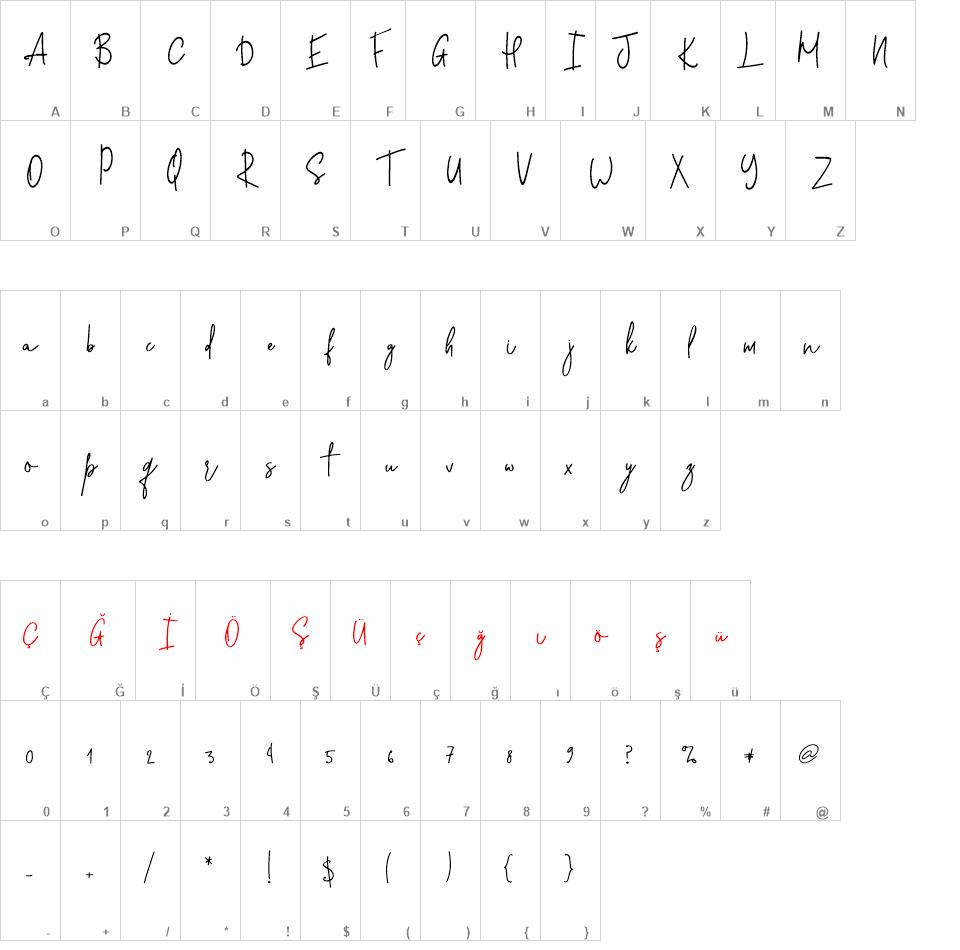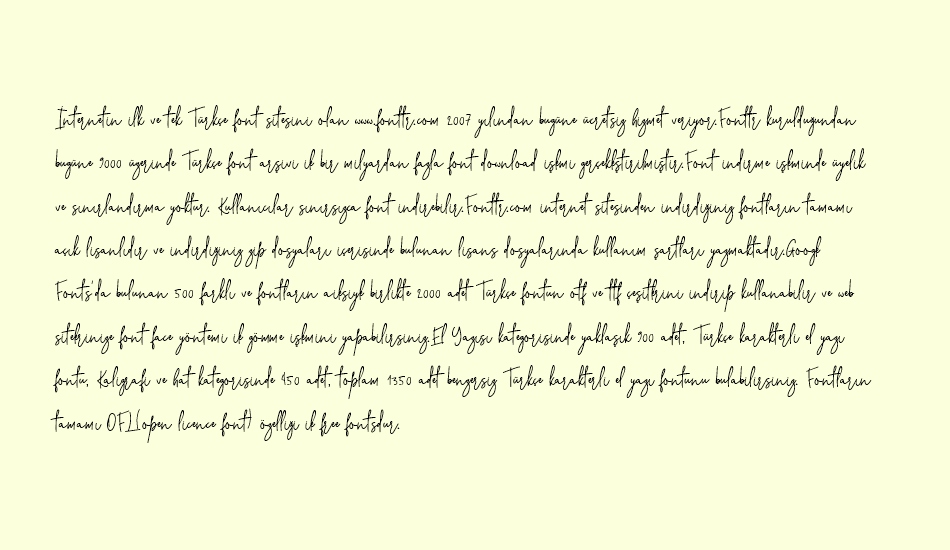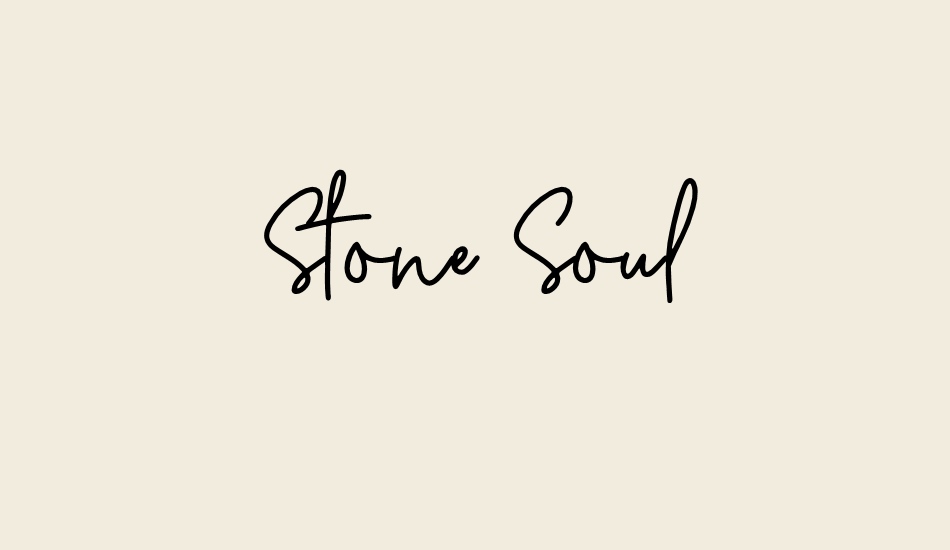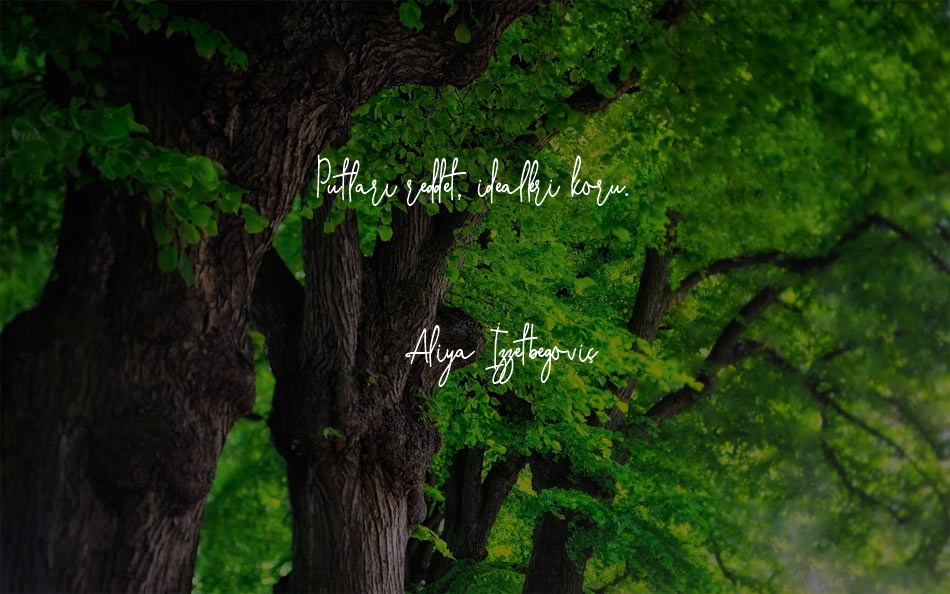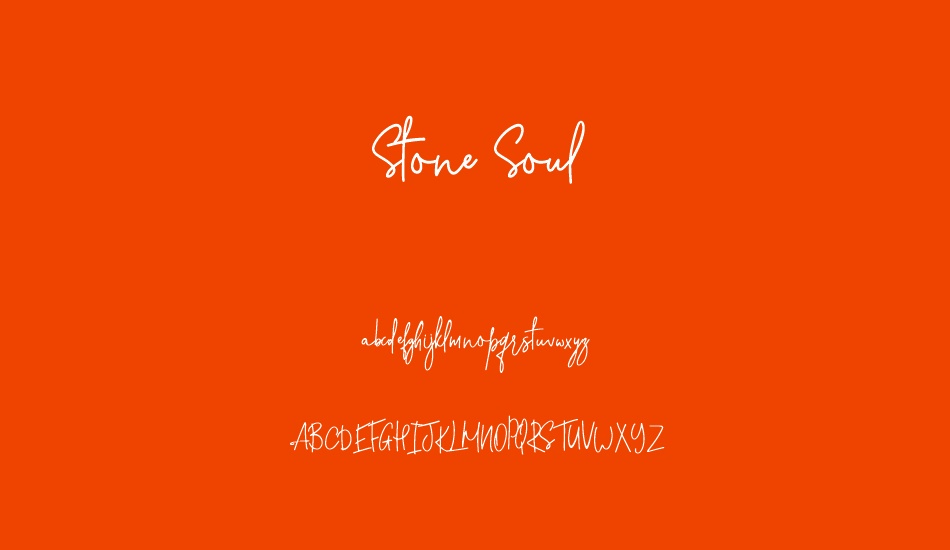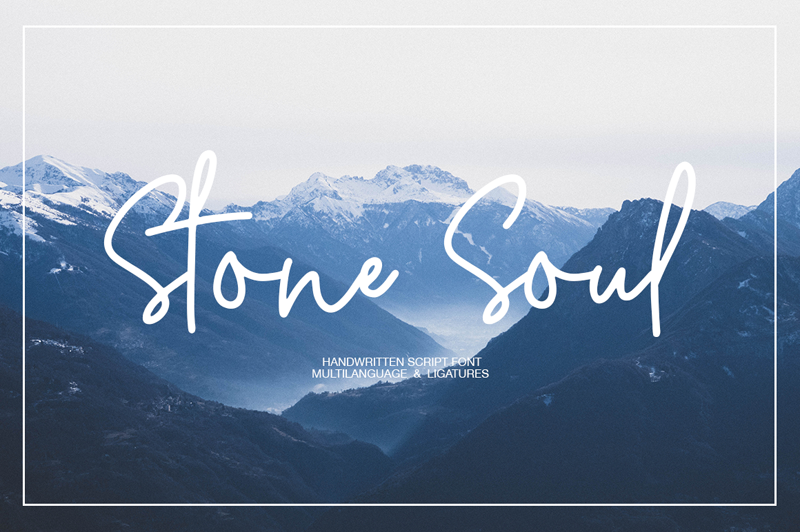
Stone Soul font
Stone Soul
Stone Soul - a new fresh handmade calligraphy font.
Very suitable for greeting cards, branding materials, business cards, quotes, posters, and more!This font are perfect for wedding postcard. Or you can create perfect and unique design of your logo, blog, stationery, marketing, magazines and more :)
UpperCase & Lowercase
Numerals & Punctuations
Multilingualcharacters(AÀÁÂÃÄÅCÇDÐEÈÉÊËIÌÍÎÏNÑOØÒÓÔÕÖUÙÜÚÛWYÝŸŸ ÆŒßÞàáâãäåæçèéêëìíîïðñòóôõöøùúûüýÿ)
LIGATURES